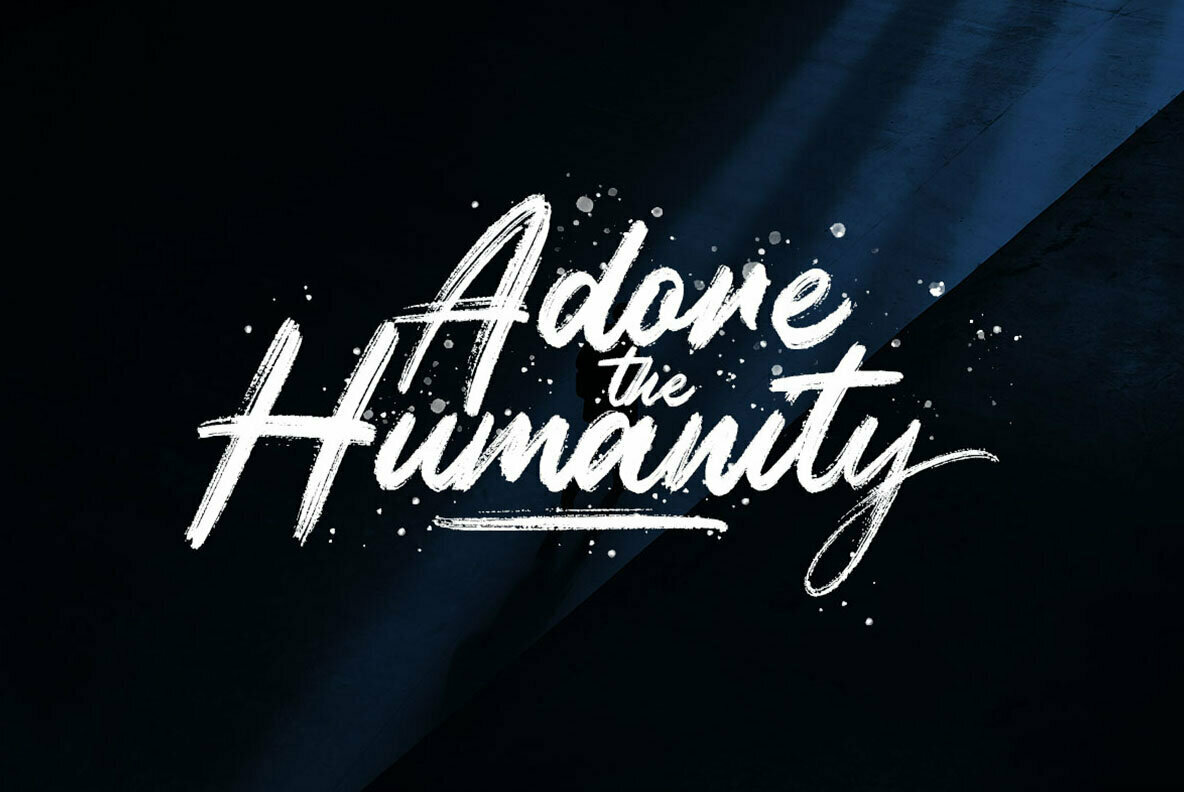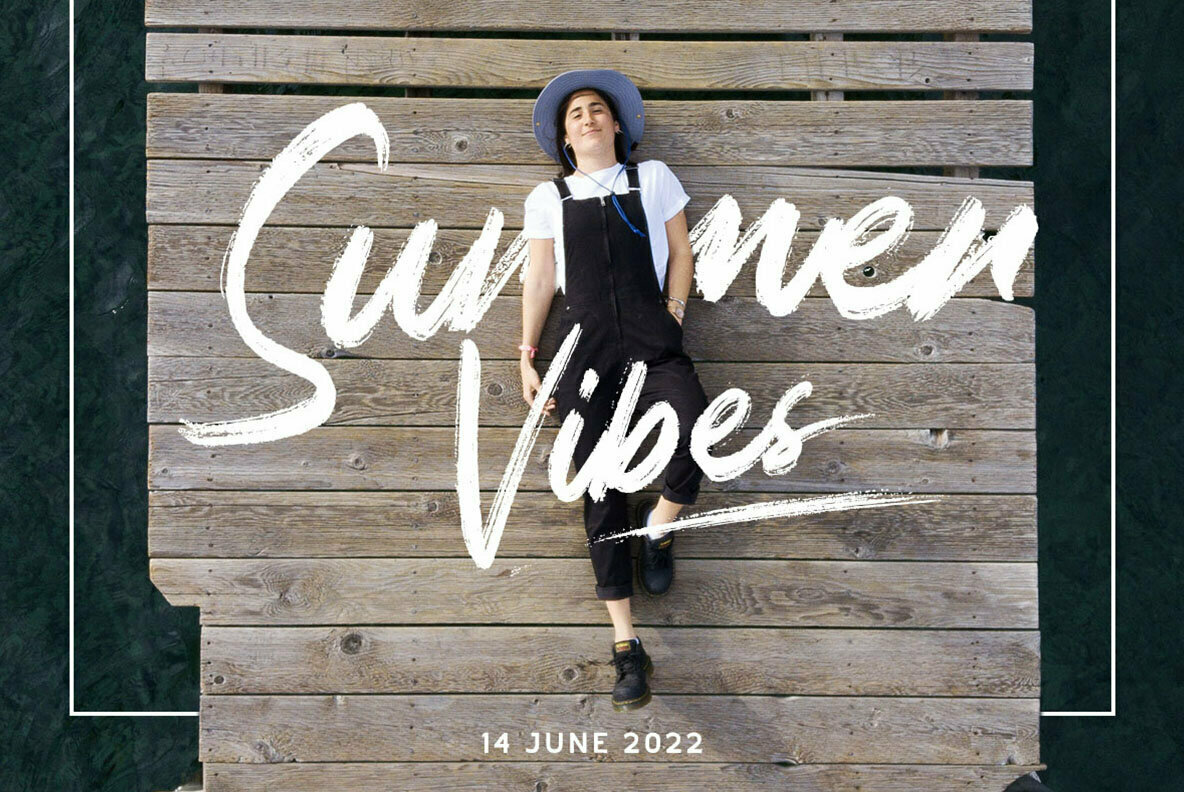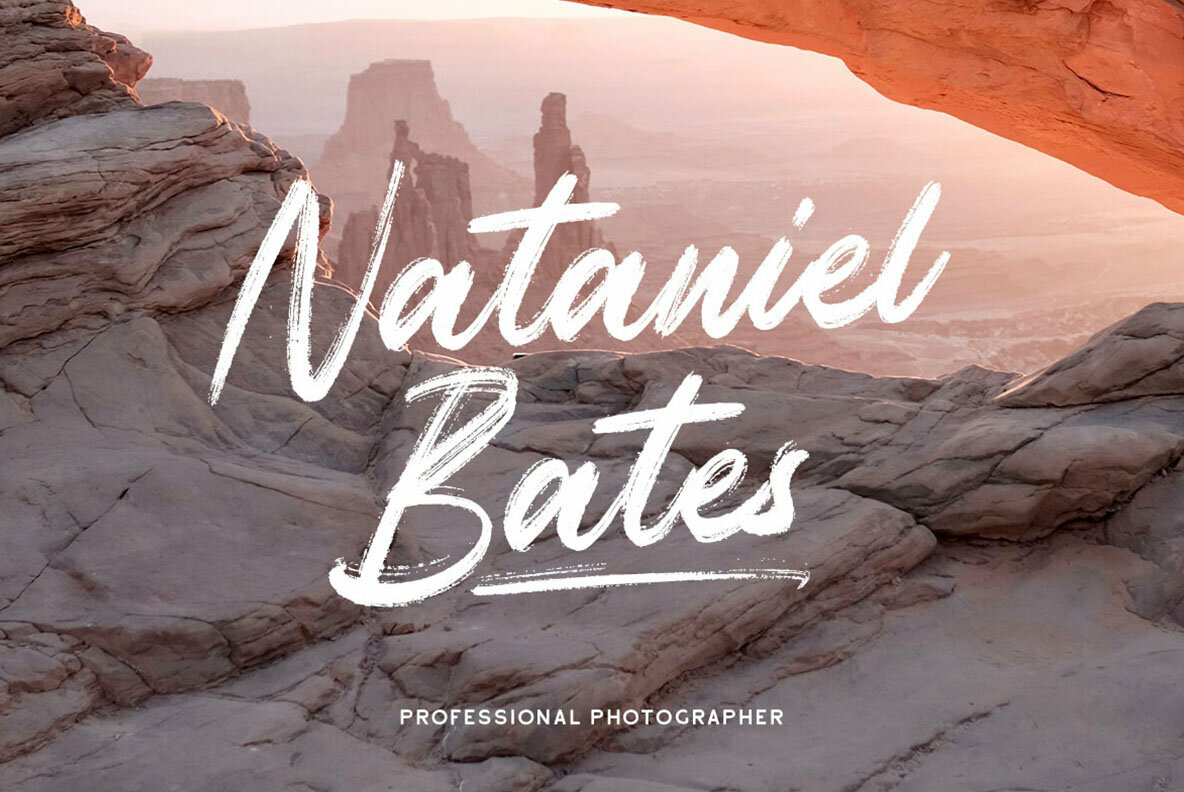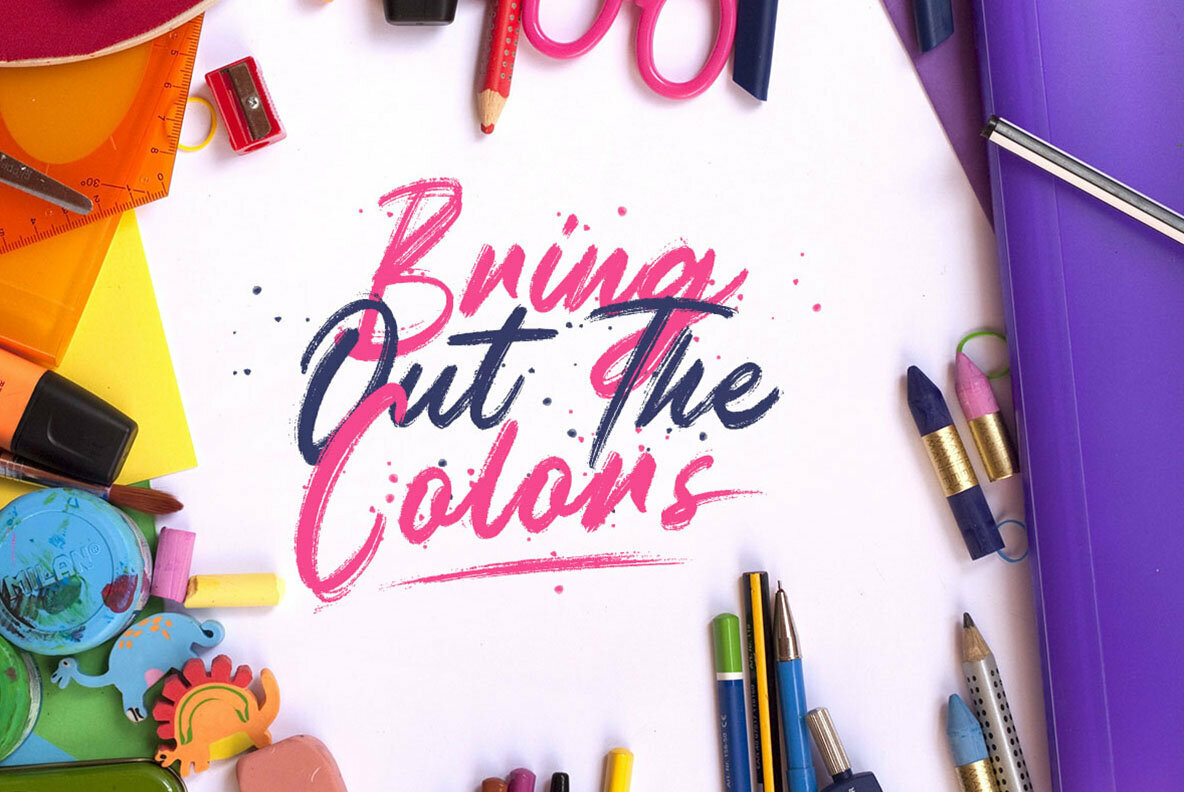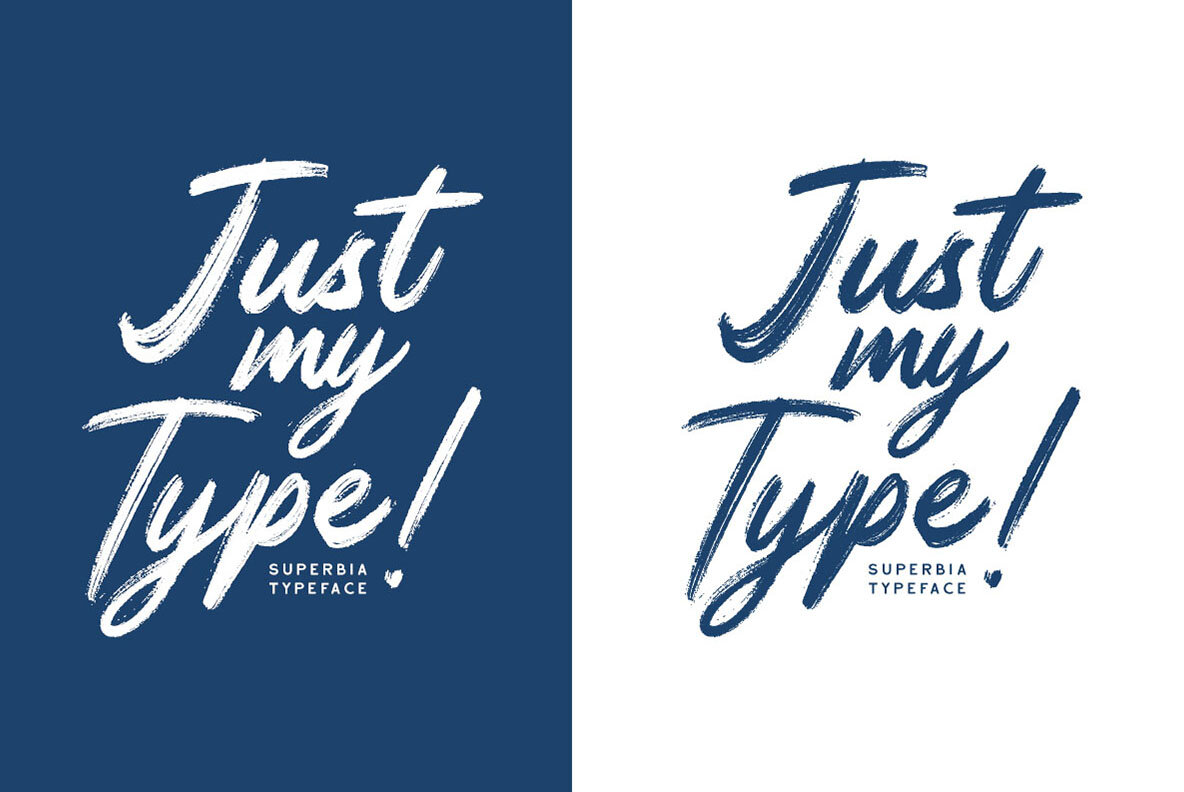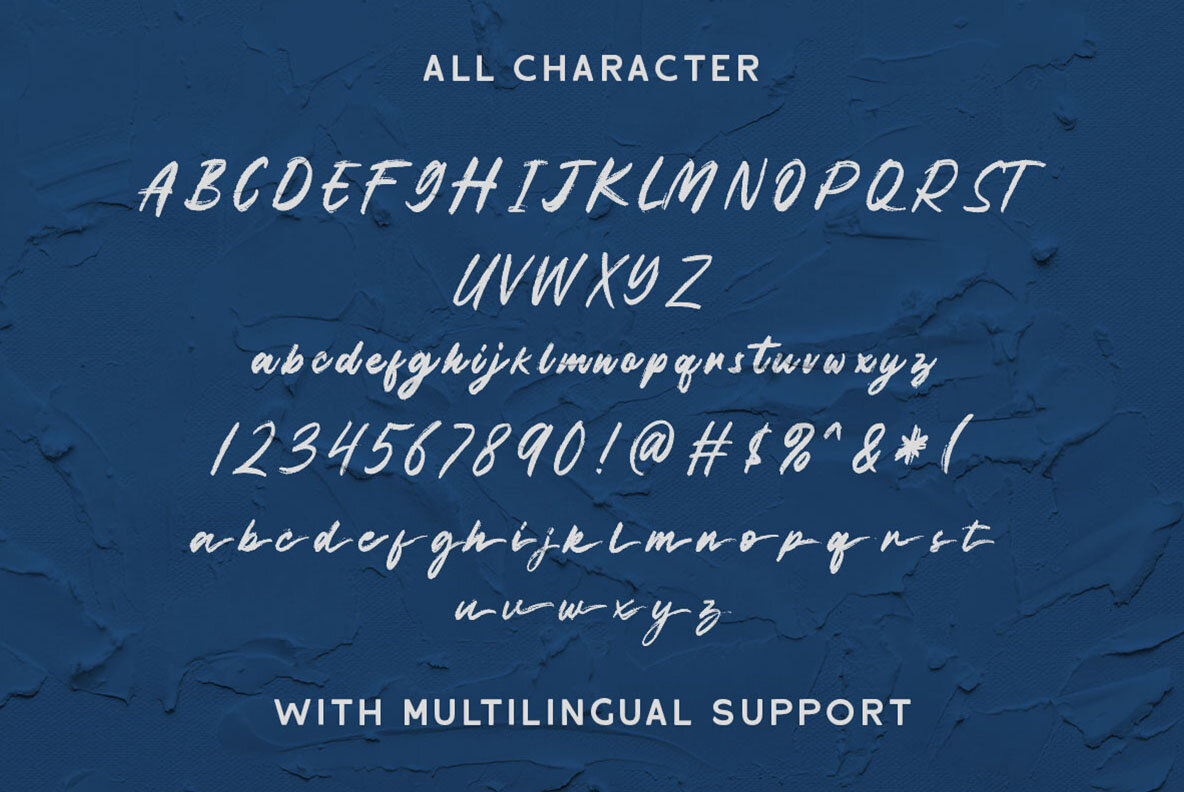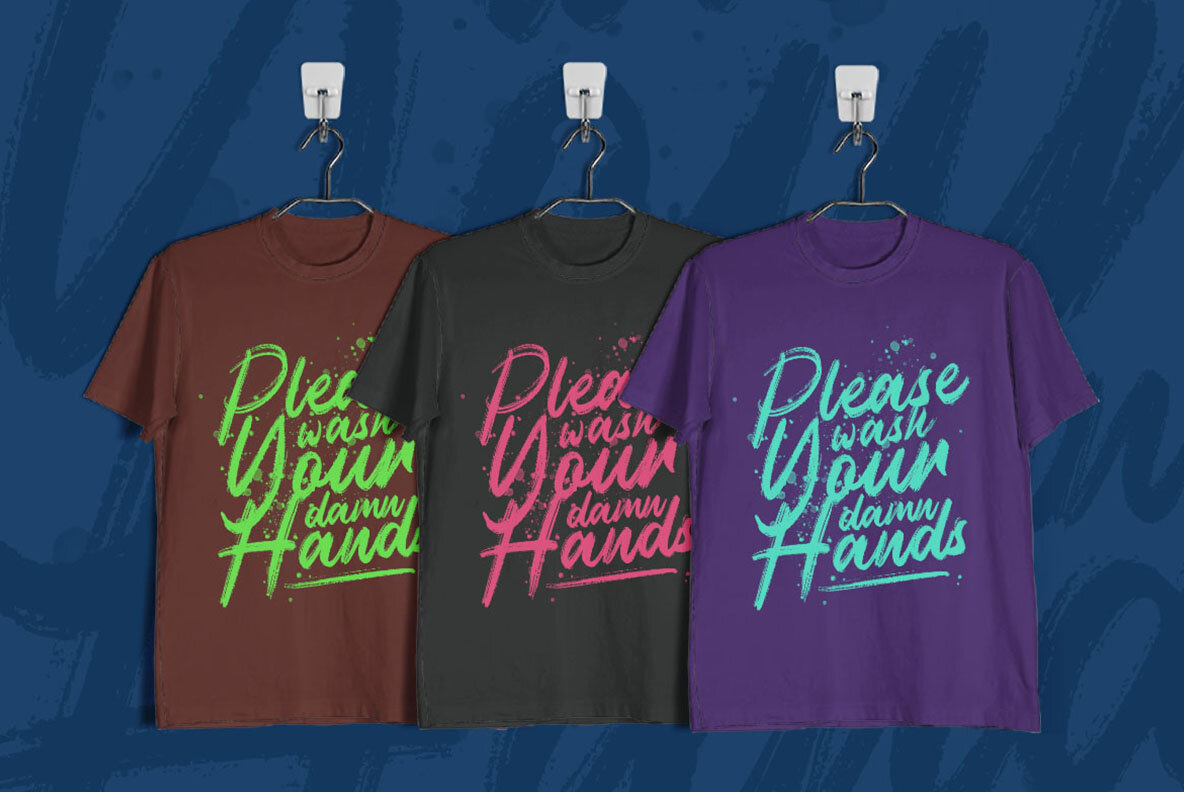
Superbia Typeface
Superbia is a textured brush font that elegantly captures the essence of hand-crafted script. Its natural and dynamic handwriting style makes it an excellent choice for those seeking a typeface suitable for headlines, logotypes, and various branding projects.Superbia Typeface: A Textured Brush Script